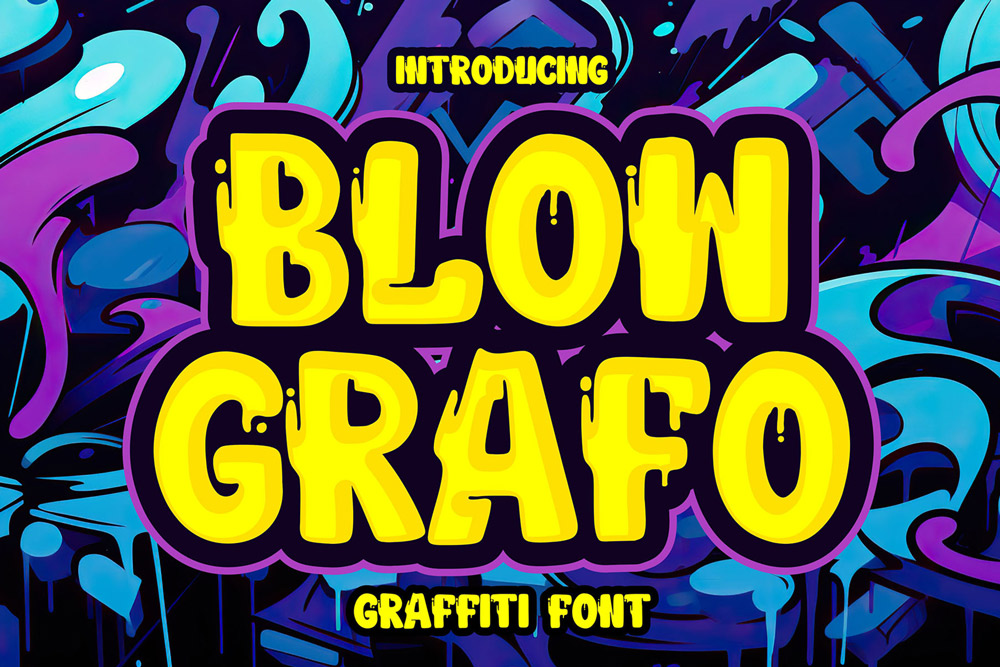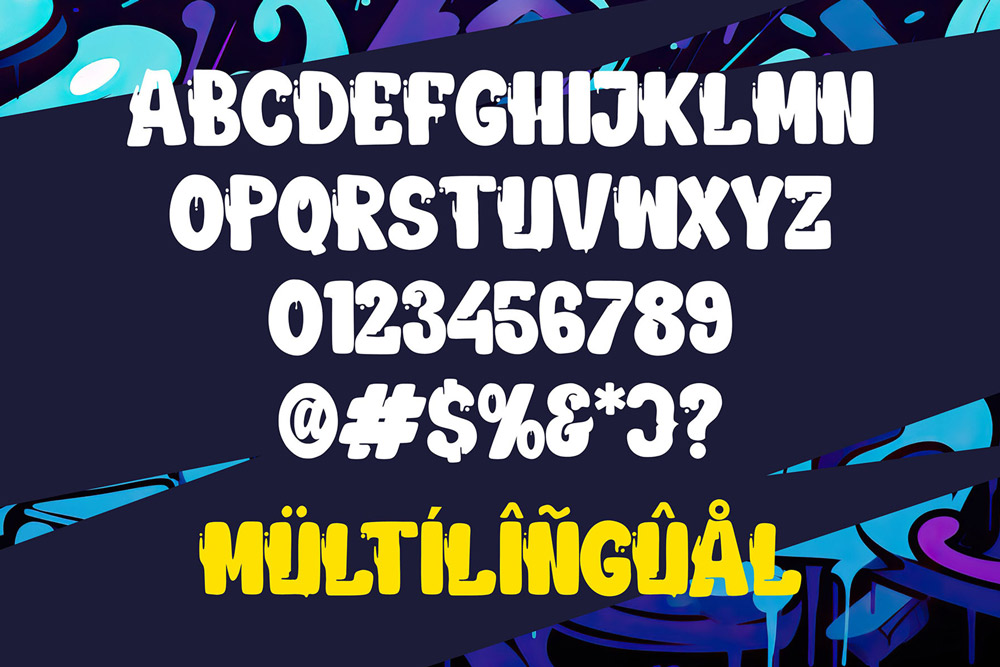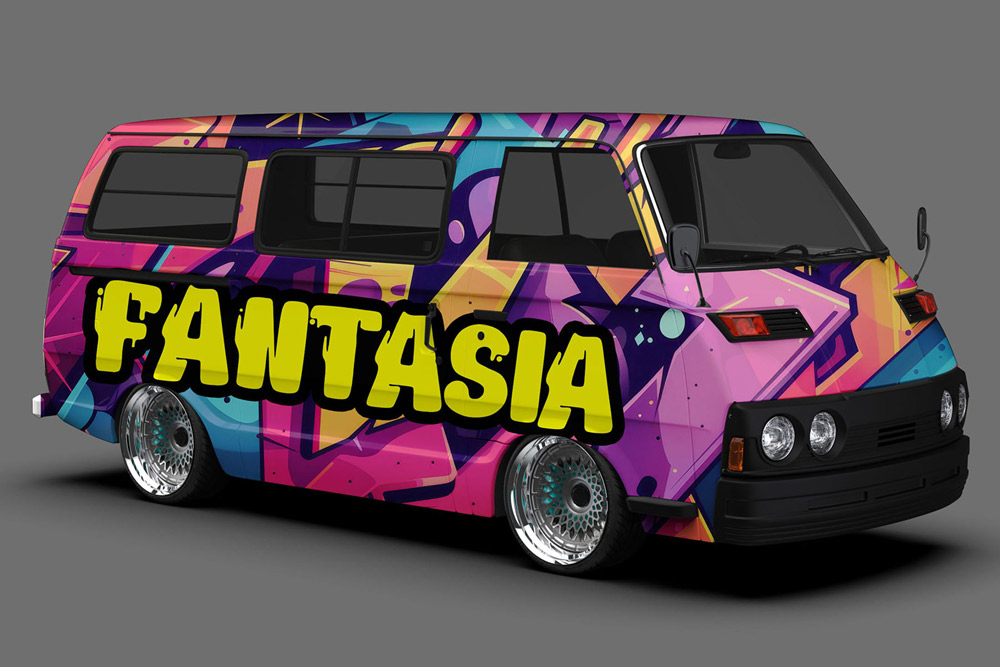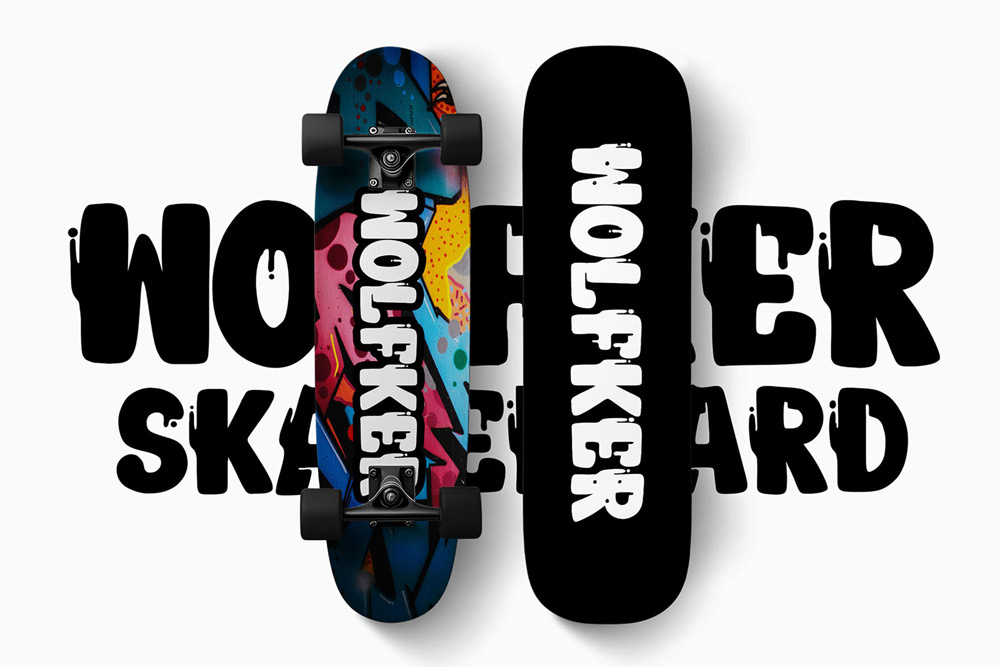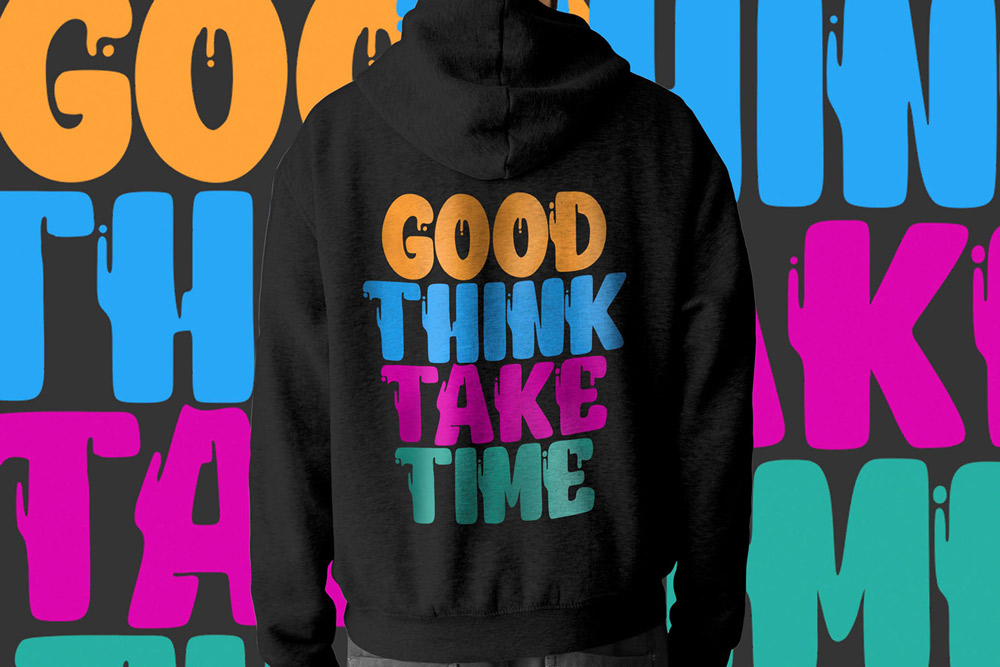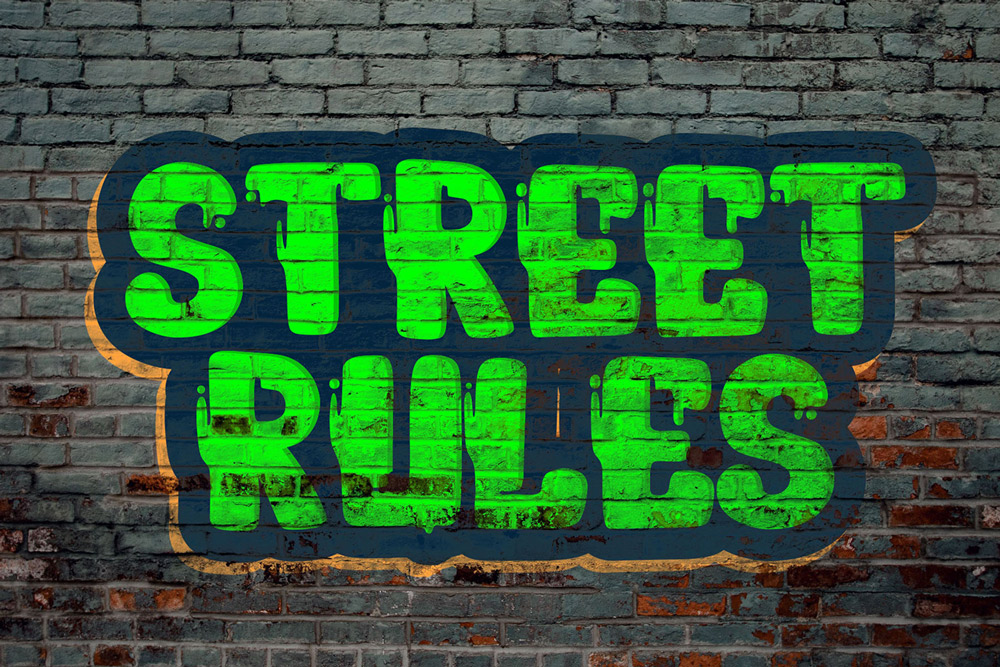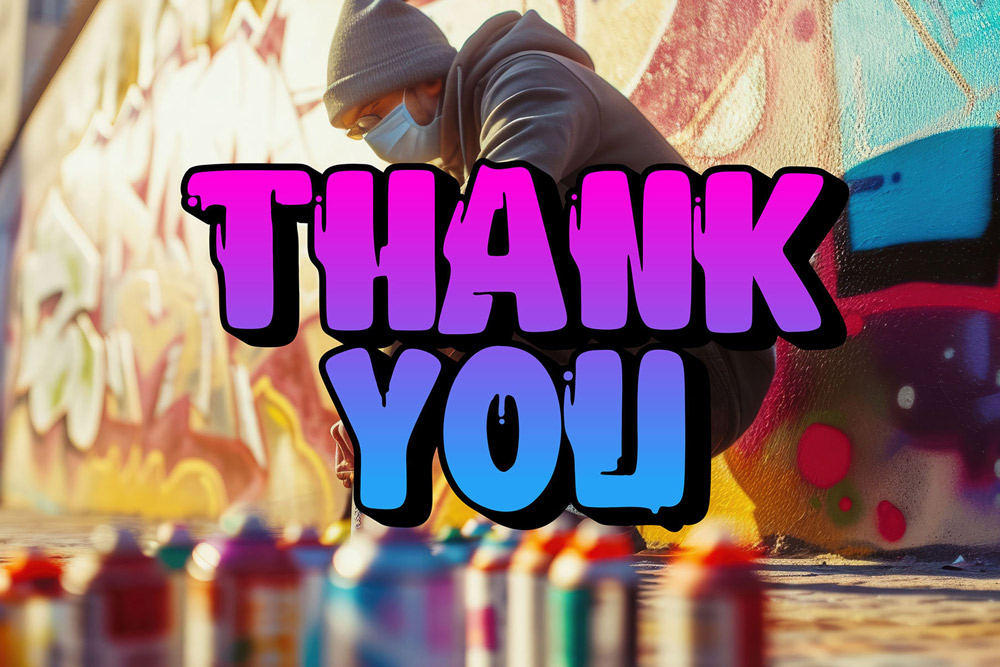
About Blow Grafo
This graffiti font is crafted for designers who want to push boundaries. It captures the essence of street art culture while maintaining professional usability for branding, posters, and digital design. With its bold uppercase structure and artistic irregularity, Blow Grafo transforms simple text into powerful visual statements.
A Unique Graffiti Font with Strong Identity
What makes Blow Grafo graffiti font different is its distinct personality. Every character is designed with intention, combining sharp edges, dynamic curves, and playful proportions that reflect real graffiti creativity. This is not just another street font—it is a unique graffiti font built to stand out in a crowded design landscape.
The font’s expressive shapes give your designs a handcrafted look while still maintaining clarity and readability. Whether you are designing a logo, poster, or merchandise, Blow Grafo ensures your typography feels alive, bold, and memorable.
Uppercase Characters with Multilingual Support
Blow Grafo is designed with uppercase characters only, ensuring a consistent and powerful visual tone throughout your designs. Each letter is carefully crafted to maintain balance, spacing, and readability, even with its unique graffiti style.
In addition, the font includes:
- Multilingual Support – ideal for global branding and international projects
- Numbers and Punctuation – complete typographic functionality for professional use
This makes Blow Grafo a versatile graffiti display font that can handle both creative and commercial design needs.
Perfect Graffiti Font for Streetwear & Urban Branding
In today’s design world, authenticity matters—and Blow Grafo – Unique Graffiti Font delivers exactly that. Its bold structure and creative flow make it ideal for projects that need to stand out and communicate strong identity.
This urban graffiti font is perfect for:
- Streetwear logos and clothing brands
- Music album covers and artist branding
- Posters and event flyers
- Skate, hip-hop, and underground visuals
- Social media graphics and digital campaigns
- Merchandise design such as stickers, bags, and apparel
Blow Grafo transforms any design into a bold, street-inspired statement that connects with modern audiences.
- Unique graffiti font with bold character style
- Uppercase characters for strong visual impact
- Multilingual support for global usability
- Numbers and punctuation included
- Clean yet expressive graffiti aesthetic
- High readability with artistic shapes
- Perfect for streetwear, posters, and branding
Why Designers Love Blow Grafo
Designers love Blow Grafo – Unique Graffiti Font because it offers something fresh. In a market filled with repetitive styles, Blow Grafo stands out with originality and character.
Here’s why designers choose Blow Grafo:
- Distinct and memorable letterforms
- Balanced mix of creativity and readability
- Strong visual identity for branding
- Easy to use across different design platforms
- Perfect for bold, modern, and urban projects
Blow Grafo gives designers the confidence to create typography that feels unique, expressive, and impactful.
The Power of Unique Graffiti Typography
Unique graffiti fonts like Blow Grafo play a crucial role in modern design. They help brands and creators stand out by adding personality and emotion to typography. Instead of blending in with generic fonts, a unique graffiti font like Blow Grafo creates a recognizable visual identity.
Its handcrafted style and urban influence make it ideal for designers who want to create work that feels authentic and culturally relevant. Whether used for branding, advertising, or artistic projects, Blow Grafo brings energy and individuality to every composition.
Blow Grafo is designed with versatility in mind, making it suitable for a wide range of creative applications:
- Streetwear Design: Build bold and memorable clothing brands
- Urban Posters: Create high-impact visuals with strong typography
- Music Branding: Perfect for hip-hop, rap, and underground artists
- Digital Content: Eye-catching text for social media and marketing
- Merchandise: Unique typography for products and packaging
If you are looking for a unique graffiti font that stands out from the crowd and brings real urban energy into your work, Blow Grafo is the perfect choice. Let your typography speak louder, move freer, and express your creative identity without limits.
Blow Grafo doesn’t follow trends—it creates them.